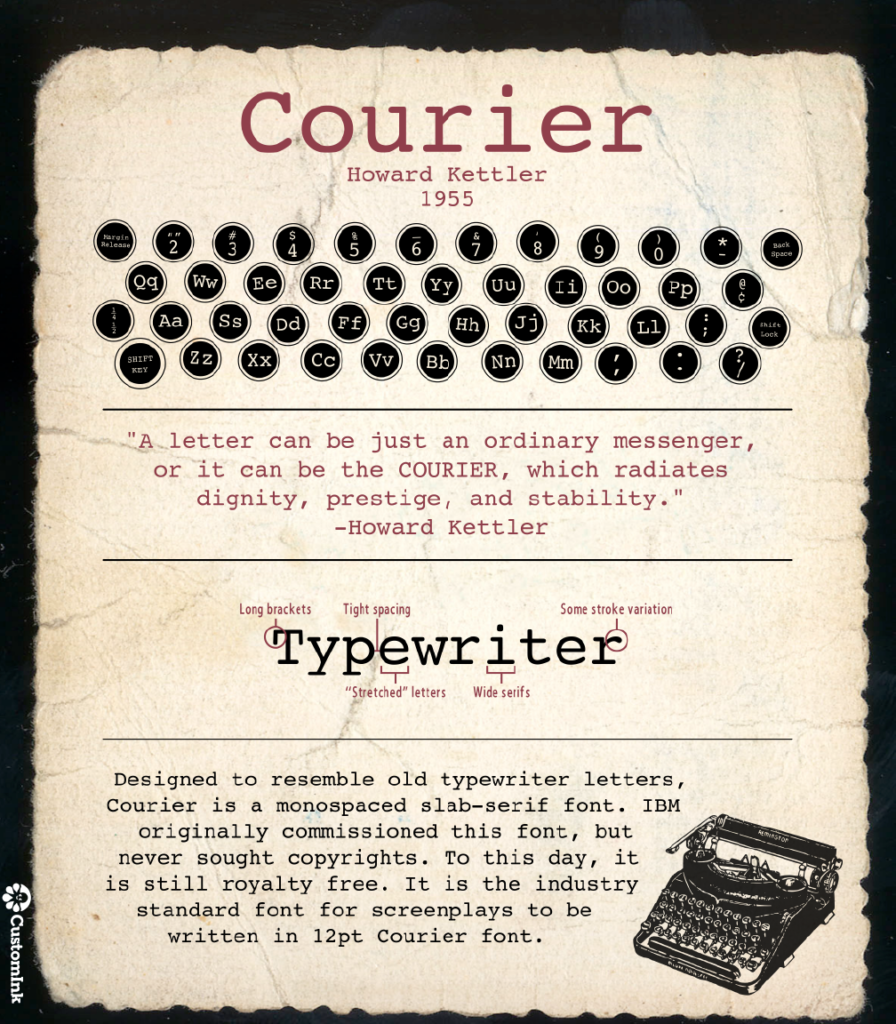
Font of the Week — Courier
Courier
Courier was the brainchild of Howard Kettler—Kettler created the typewriter-esque font in 1955 and originally named it “Messenger”. He found this name didn’t truly encompass all he intended, and renamed it “Courier” as he believed, “A letter can be just an ordinary messenger, or it can be the COURIER, which radiates dignity, prestige, and stability.” Famed typographer Adrian Frutiger redrew the famous font years later for the use on electric typewriters. Courier has definitely lived up to it’s namesake as one of the most recognizable fonts in the world, not to mention the industry standard font for all screenplays.